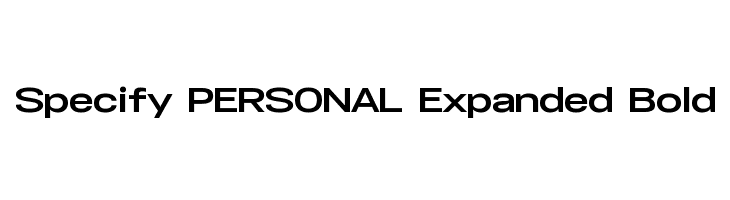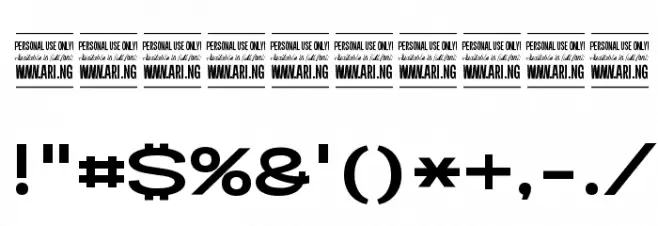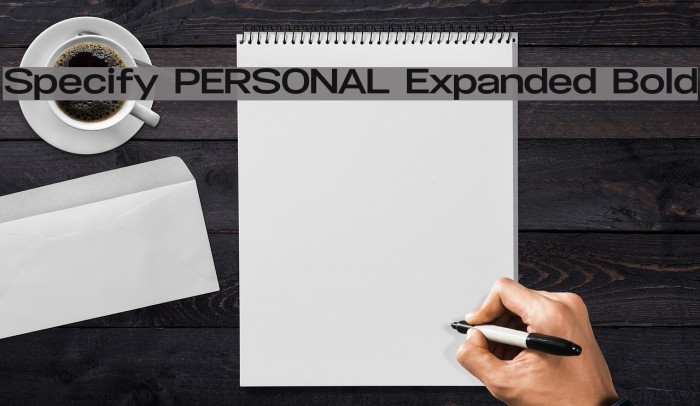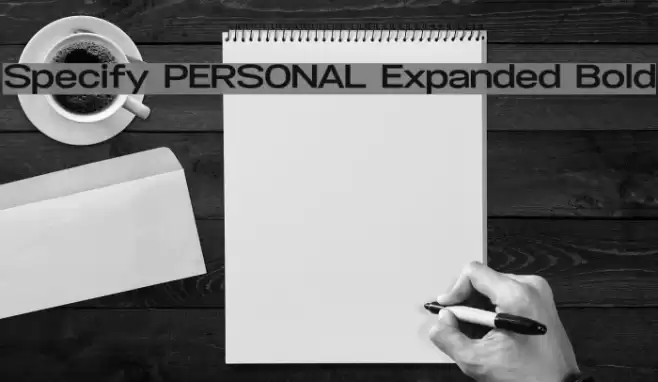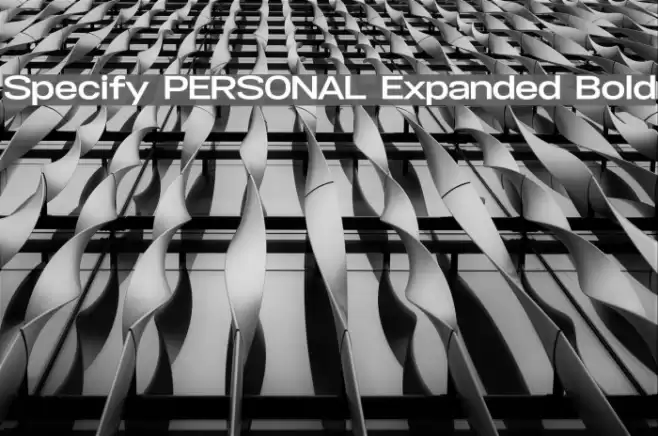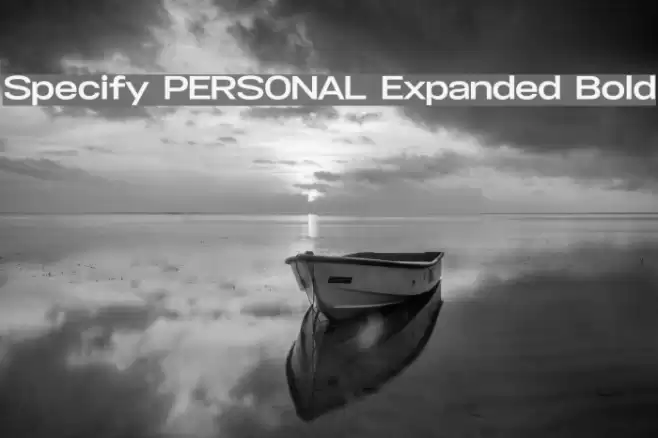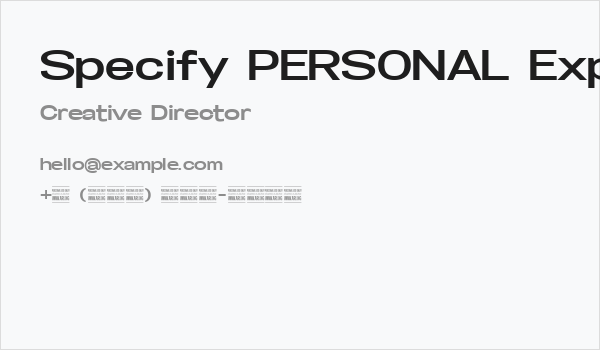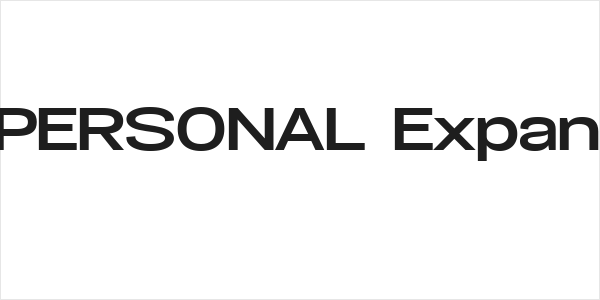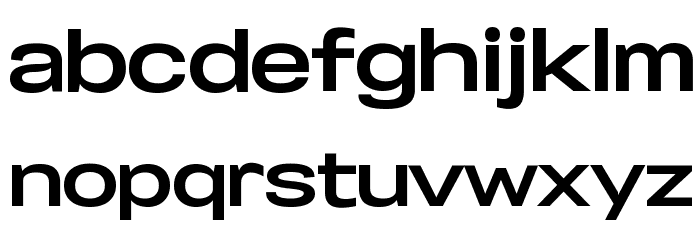
Specify PERSONAL Expanded Bold Font
Specify PERSONAL Expanded Bold Description
This font features a bold and expanded style, characterized by its strong and impactful presence. The uppercase and lowercase letters are designed with a uniform thickness, providing a consistent and modern look. The characters are well-defined with clean lines and minimal embellishments, making it highly legible. The numerals and special characters maintain the same boldness, ensuring a cohesive appearance across all text elements. This font is suitable for making statements in headlines or titles due to its commanding style.
| Proposed Projects | Ideal for branding, advertising, posters, and any project requiring a strong visual impact. |